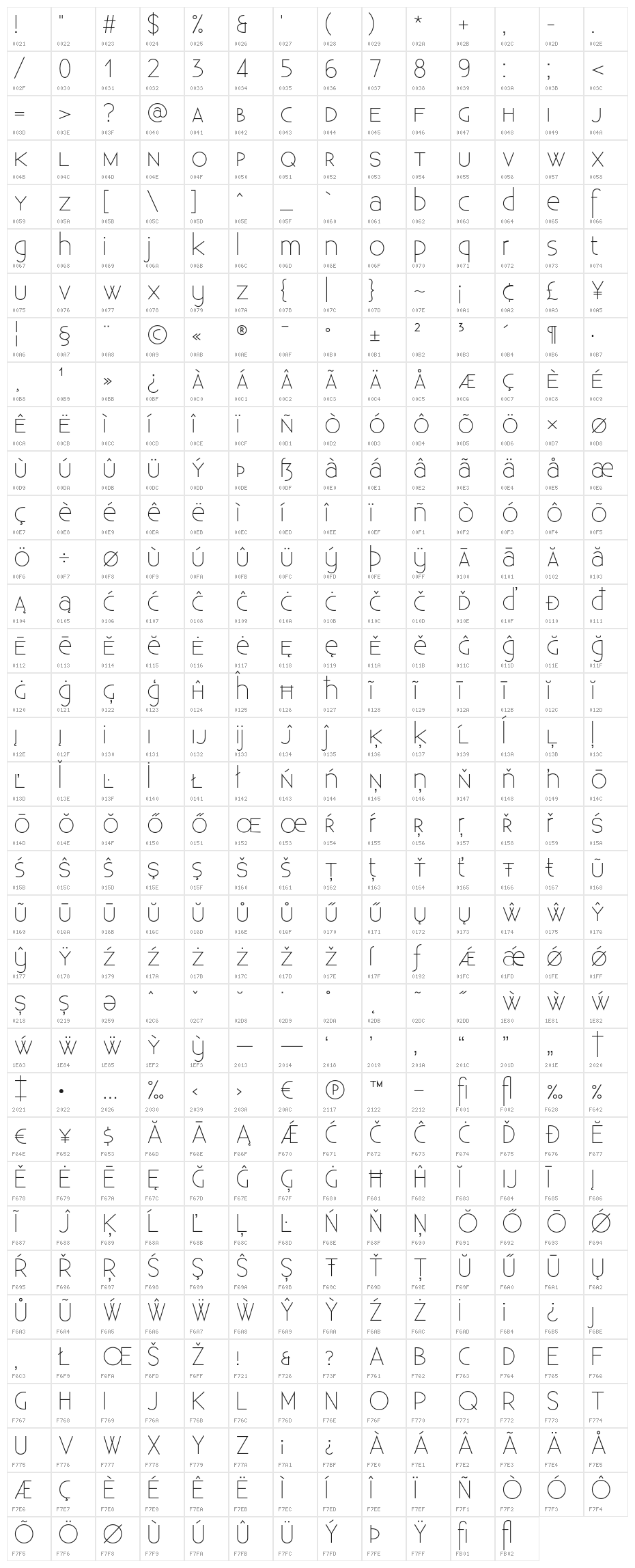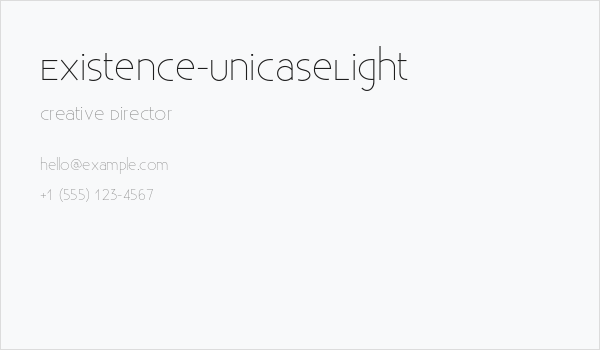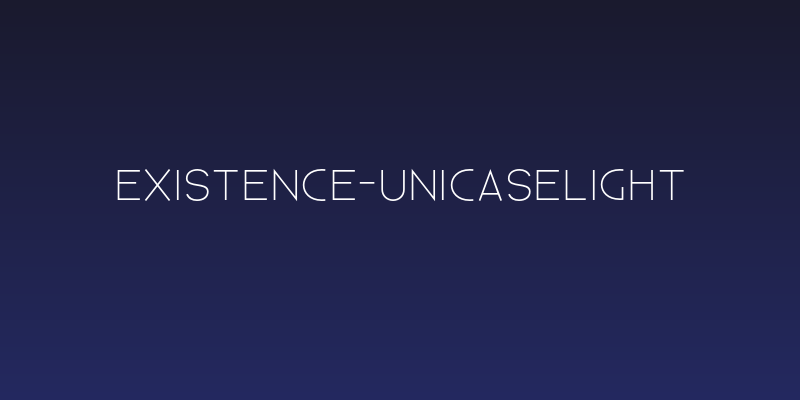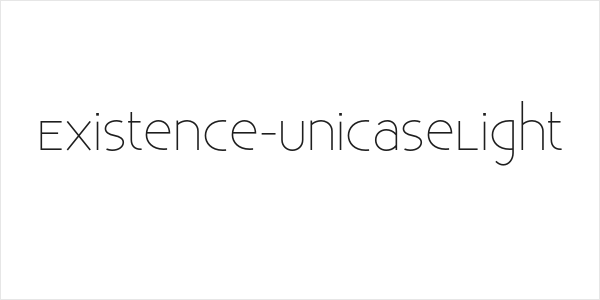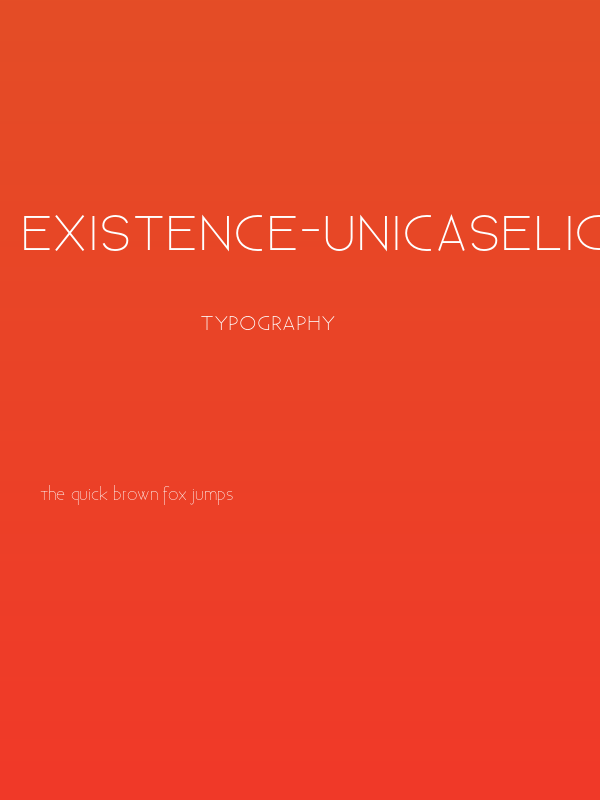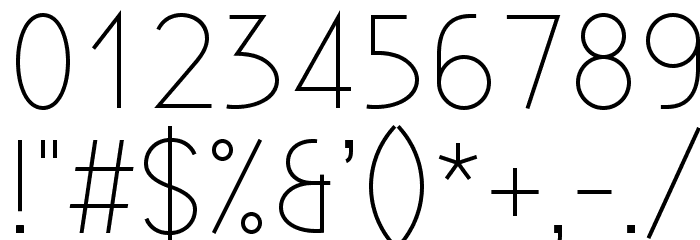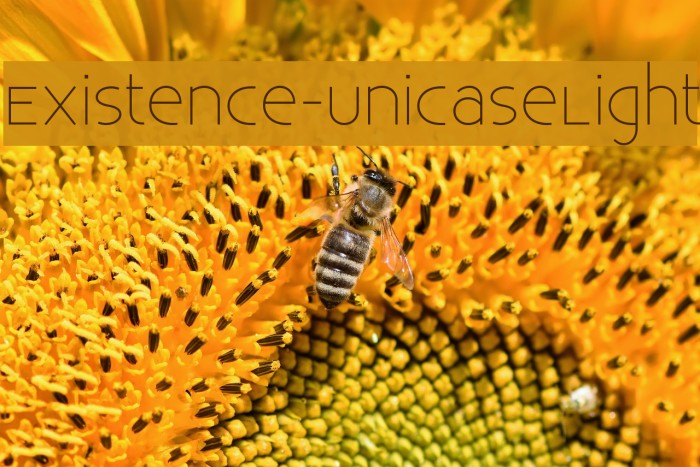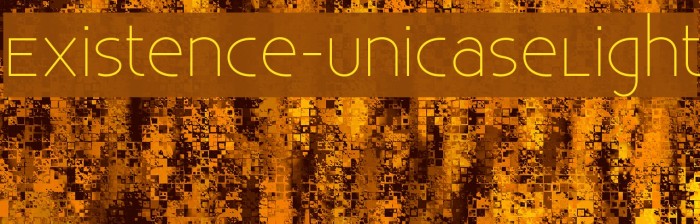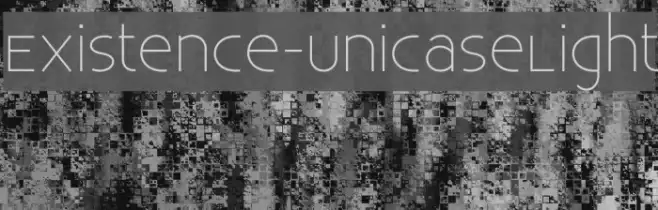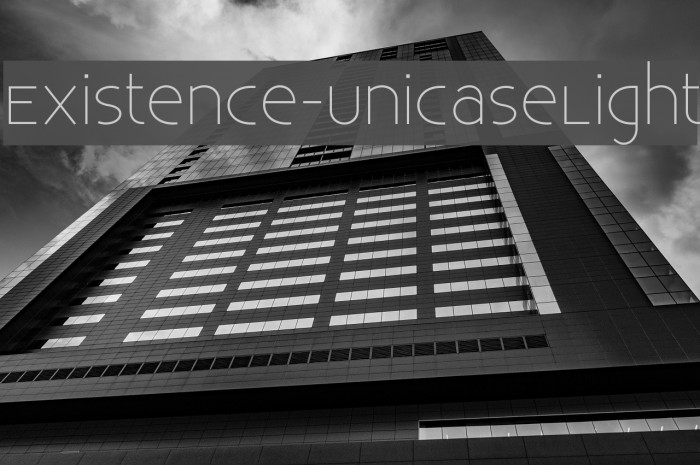
Existence-UnicaseLight Font
Existence-UnicaseLight Description
This font presents a clean and modern aesthetic with a minimalist approach. It features thin, uniform strokes that contribute to its light and airy appearance. The characters are well-proportioned, offering a sense of balance and harmony. The uppercase and lowercase letters maintain a consistent style, with smooth curves and straight lines. The numerals are clear and easy to read, complementing the overall design. Special characters are elegantly integrated, maintaining the font's sleek look. This font is ideal for projects that require a contemporary and sophisticated touch.
| Proposed Projects | Ideal for branding, editorial design, websites, and modern advertising. |